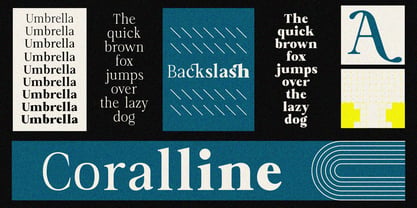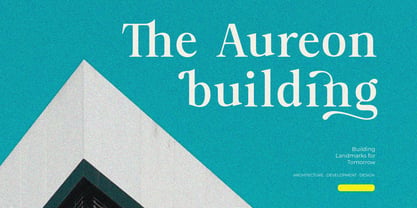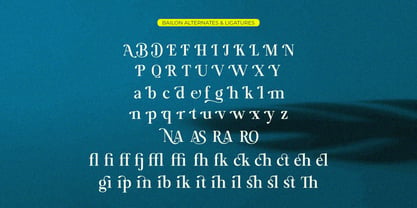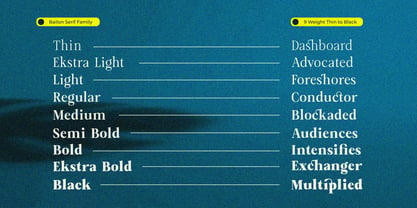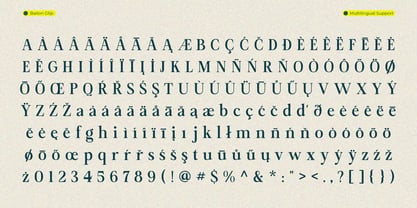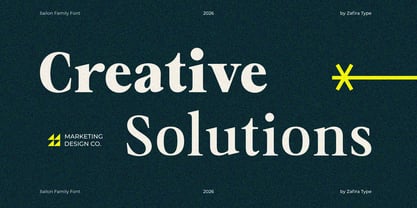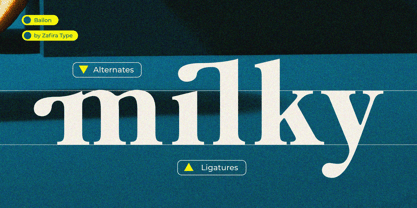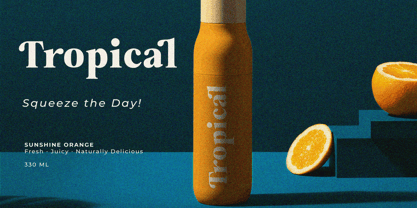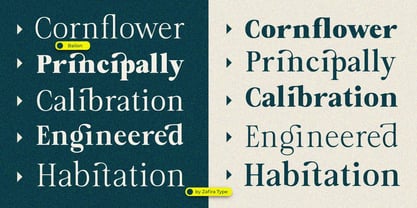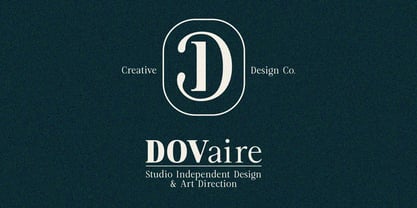
Bailon
by Zafira Type
The Bailon Font Family was designed by Su Hirno and published by Zafira Type. Bailon contains 18 styles and family package options. More about this family
Bailon is a modern serif font family designed to bring an elegant, bold, and professional touch to any design project. Balancing classic aesthetic appeal with contemporary refinement, Bailon offers exceptional flexibility across both print and digital media.
Featuring 9 weights — ranging from delicate Thin to impactful Black — Bailon gives you complete typographic freedom to craft structured, consistent, and visually striking hierarchies.
Designers: Su Hirno
Foundry: Zafira Type